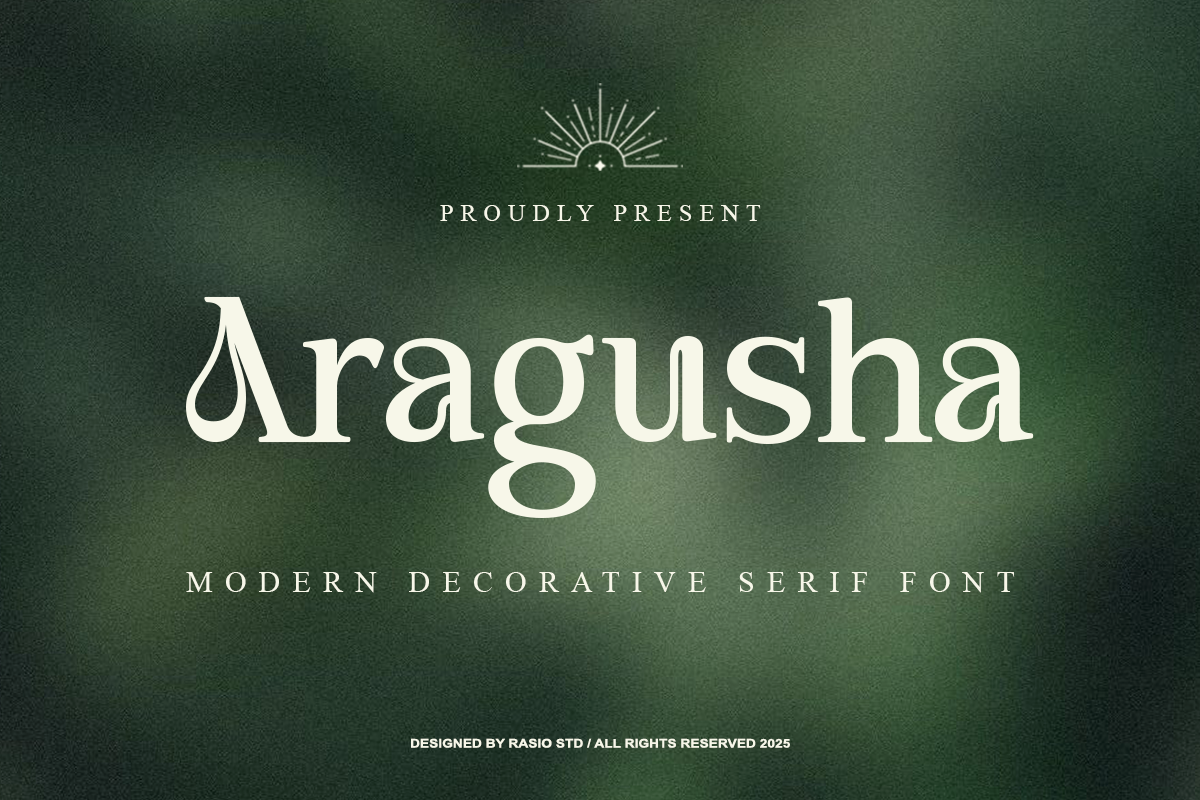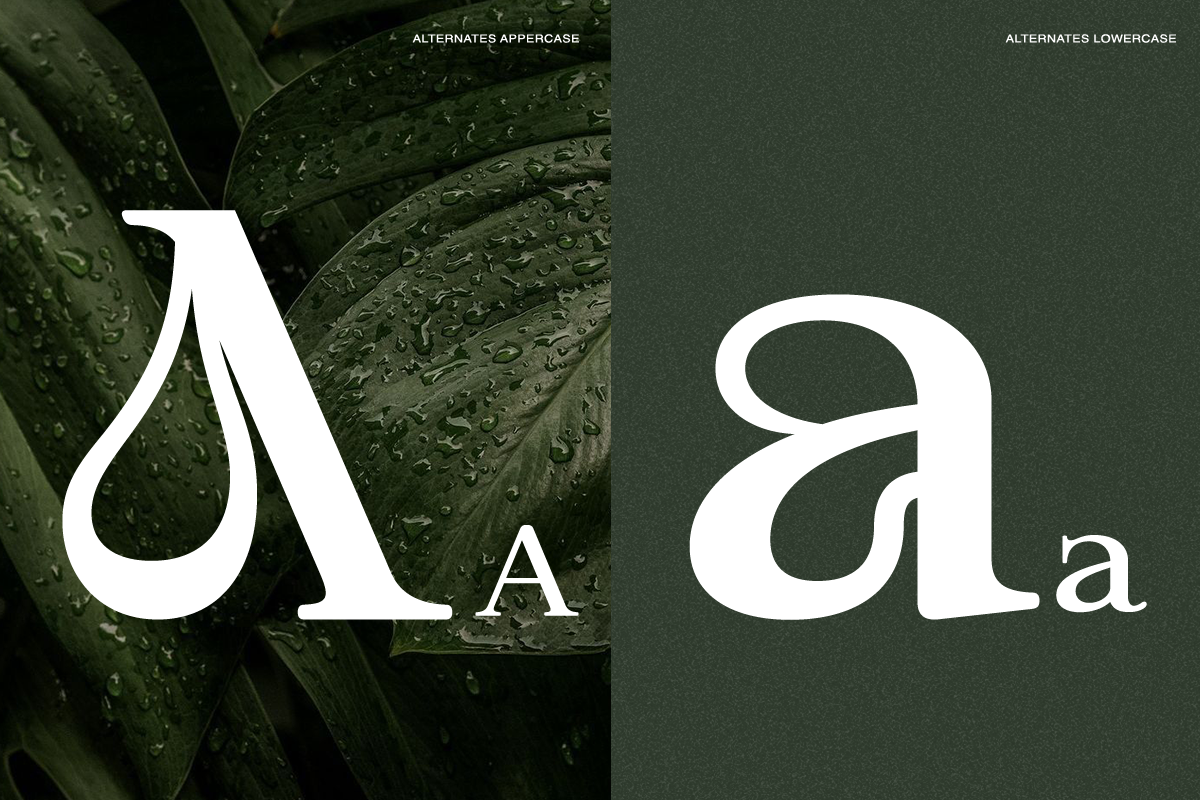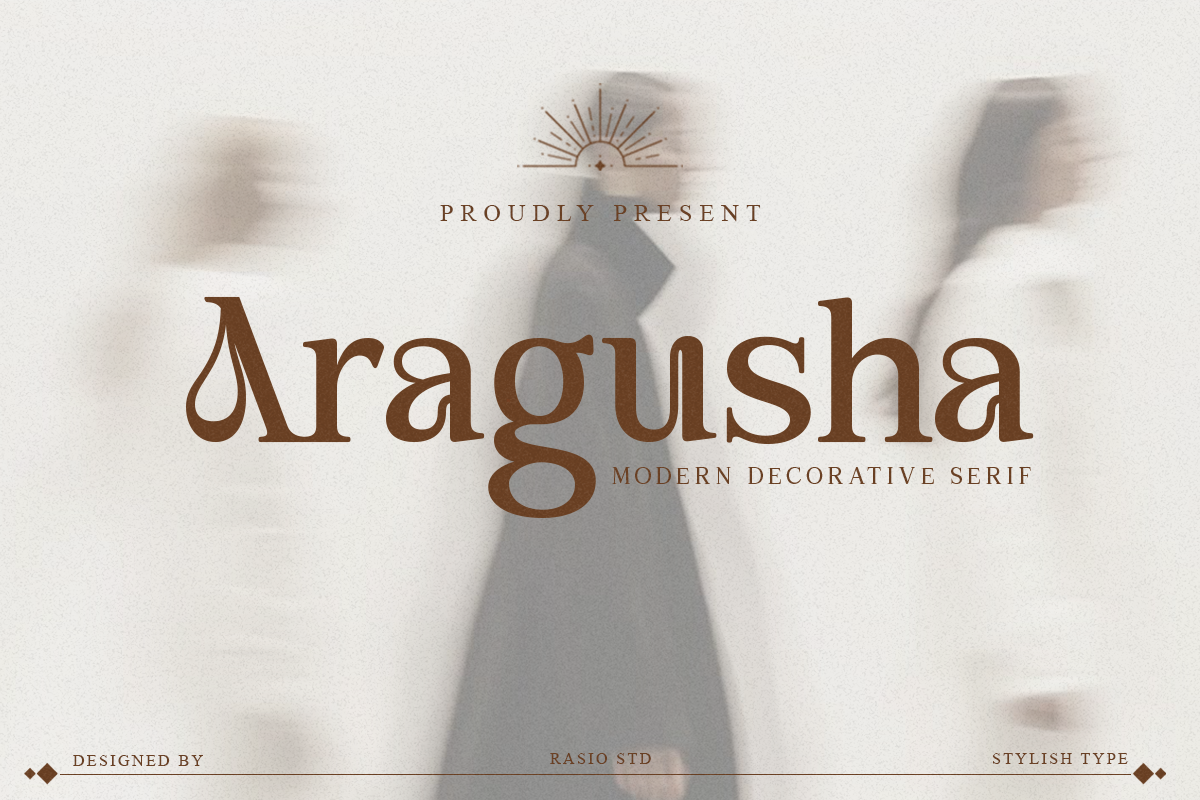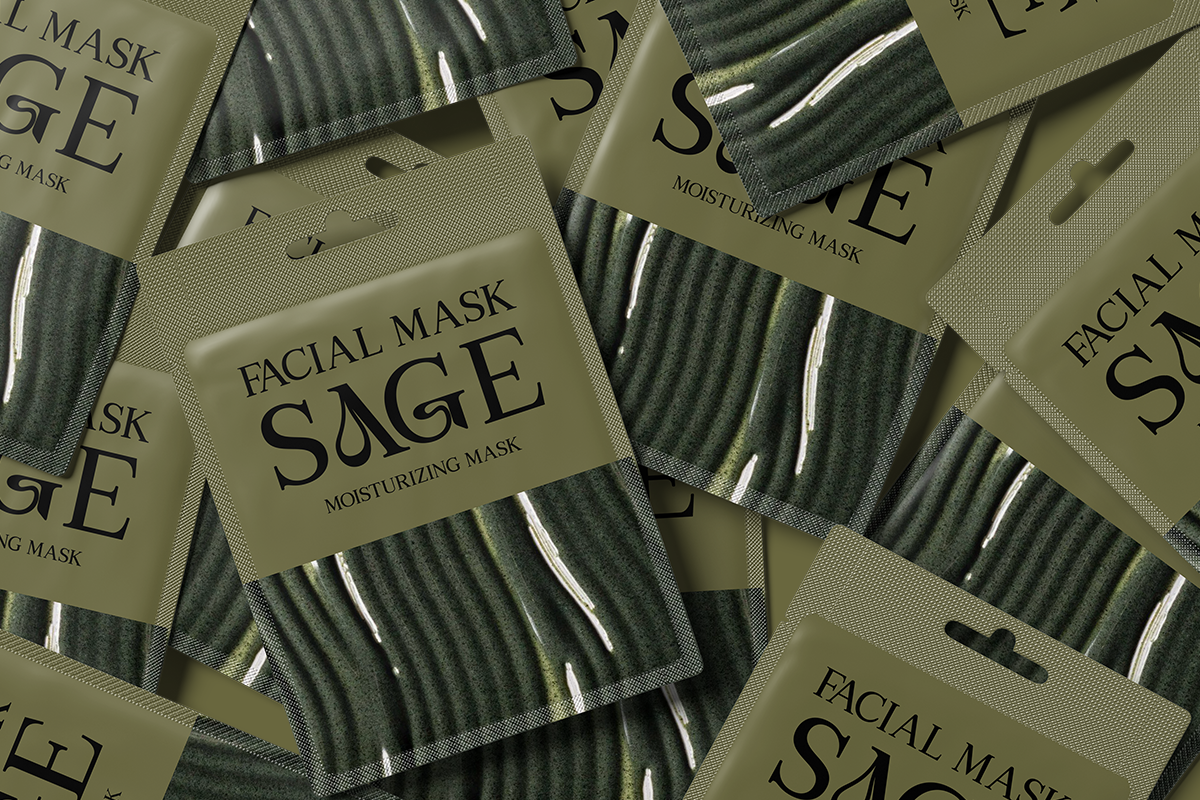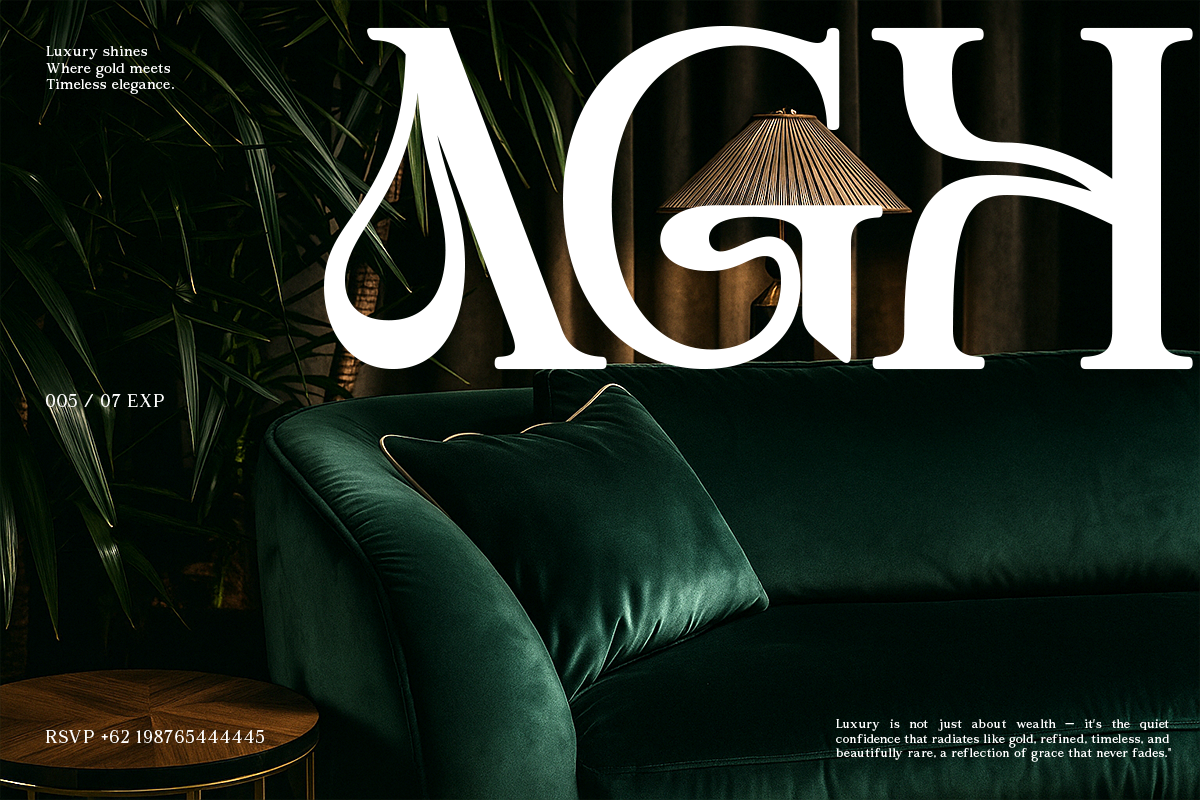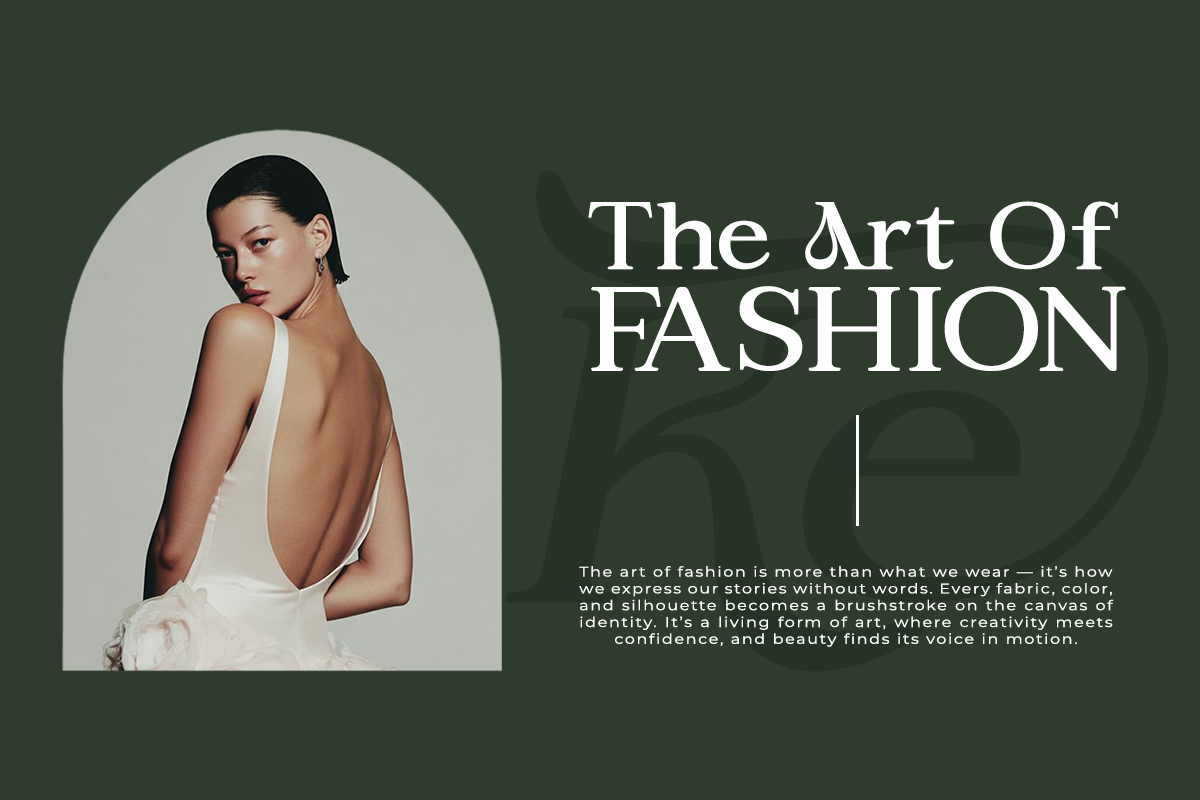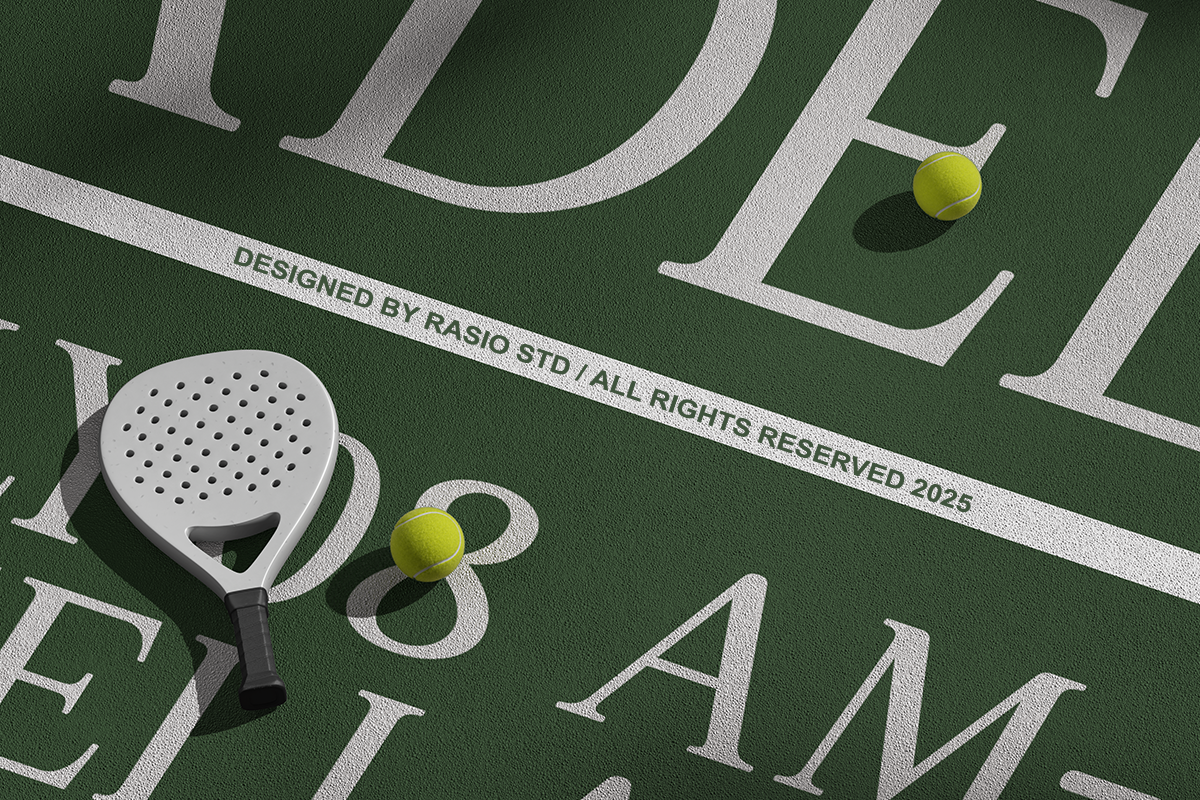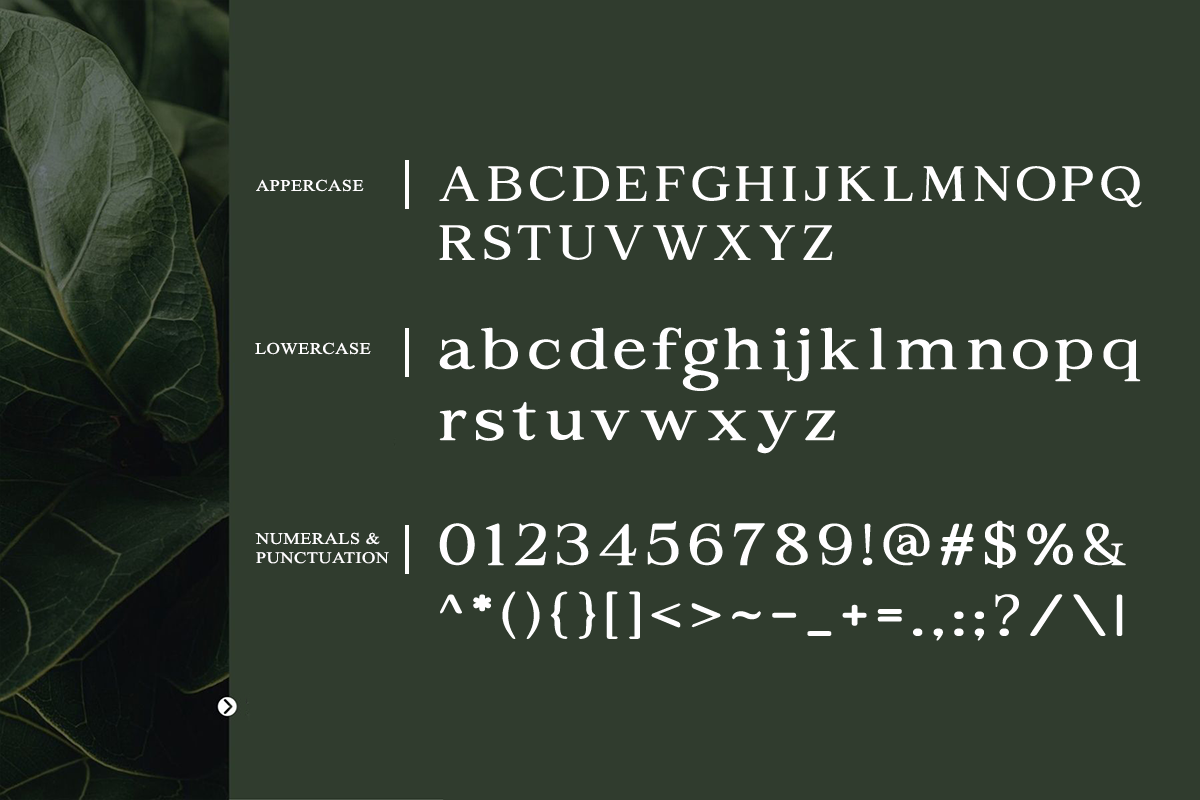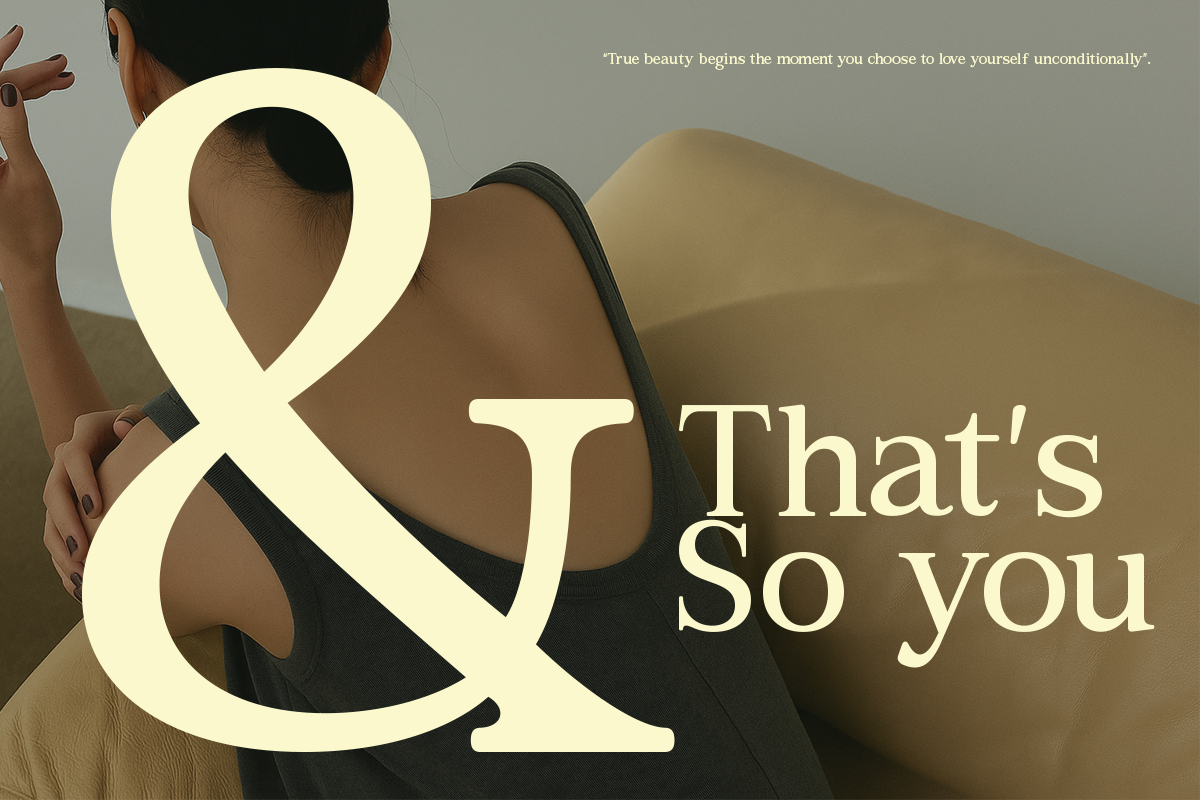
Aragusha Decorative Serif Font
Aragusha is a modern decorative serif font that embodies refined luxury and timeless elegance. Its fluid teardrop terminals and graceful letterforms create a sophisticated impression, blending classical beauty with contemporary artistry. The high-contrast strokes and expressive alternates evoke a sense of craftsmanship and premium design, perfect for projects that require distinction and visual drama.
Crafted for editorial layouts, fashion branding, and elegant packaging, Aragusha elevates typography into an art form where detail, style, and refinement coexist in harmony. Relevance and Use Cases is perfect for luxury branding, fashion editorials, packaging design, wedding invitations, boutique logos, high-end advertising, and magazine headlines that emphasize sophistication and grace.
- Modern decorative serif with elegant high-contrast strokes
- Distinctive teardrop terminals and refined curved details
- Soft, organic letterforms with a graceful and luxurious feel
- Balanced proportions with smooth transitions between thick and thin lines
- Subtle classic influence blended with contemporary styling
- Brand identity systems with a luxury, elegant, and refined tone
- High-end packaging design for beauty, perfume, fashion, and lifestyle products
- Editorial layouts such as fashion magazines and premium publications
- Wedding invitations, event stationery, and upscale print materials
- Social media branding with a sophisticated and aesthetic visual style
Aragusha a decorative serif font that radiates timeless beauty, luxury, and modern refinement